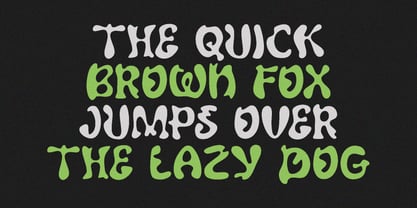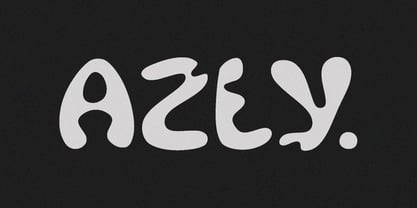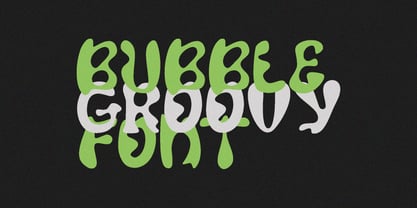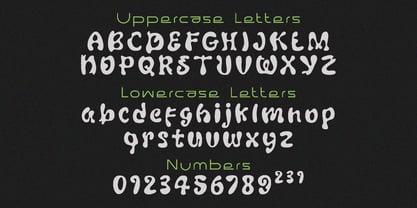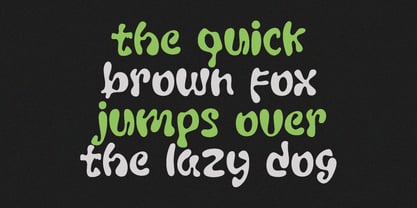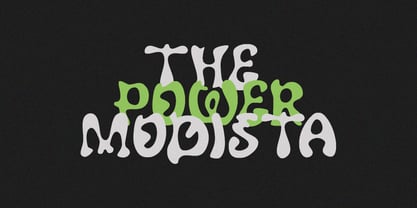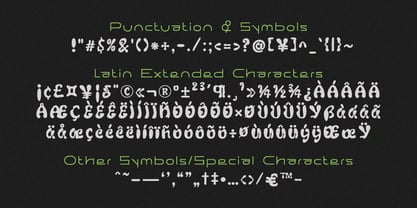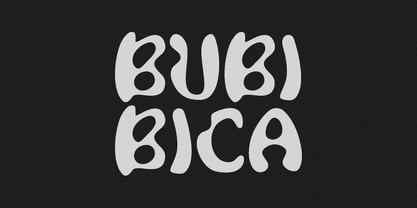
Azly
by Erifqizefont
The Azly Font Family was designed by Eka Rifqi Setiawan and published by Erifqizefont. Azly contains 1 styles. More about this family
Azly is a fun and quirky display font that blends soft, rounded shapes with an organic, fluid style. Each letter feels lively and spontaneous, giving your design a friendly and energetic vibe. Perfect for playful branding, creative posters, packaging, social media graphics, and bold headlines that need a touch of personality. Its blob-like, irregular contours create a unique handmade feel while maintaining a strong visual balance — making Azly stand out in both digital and print projects.
Designers: Eka Rifqi Setiawan
Foundry: Erifqizefont